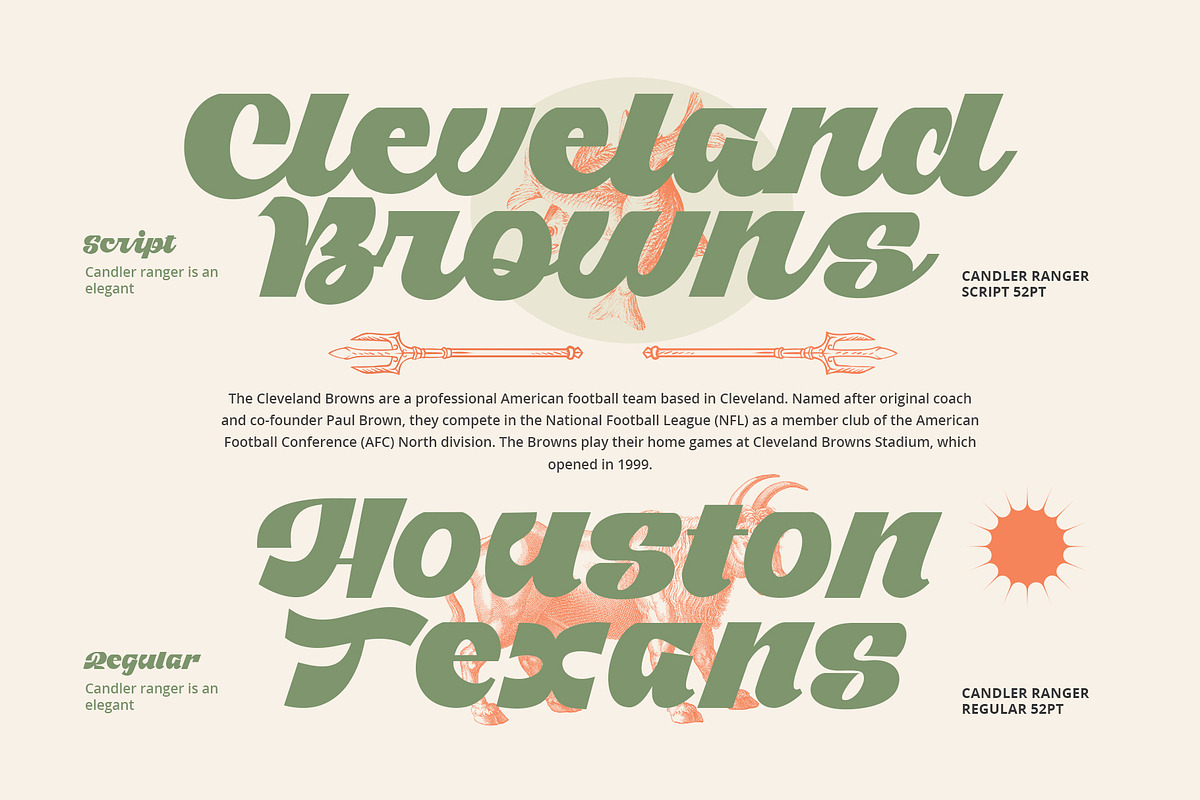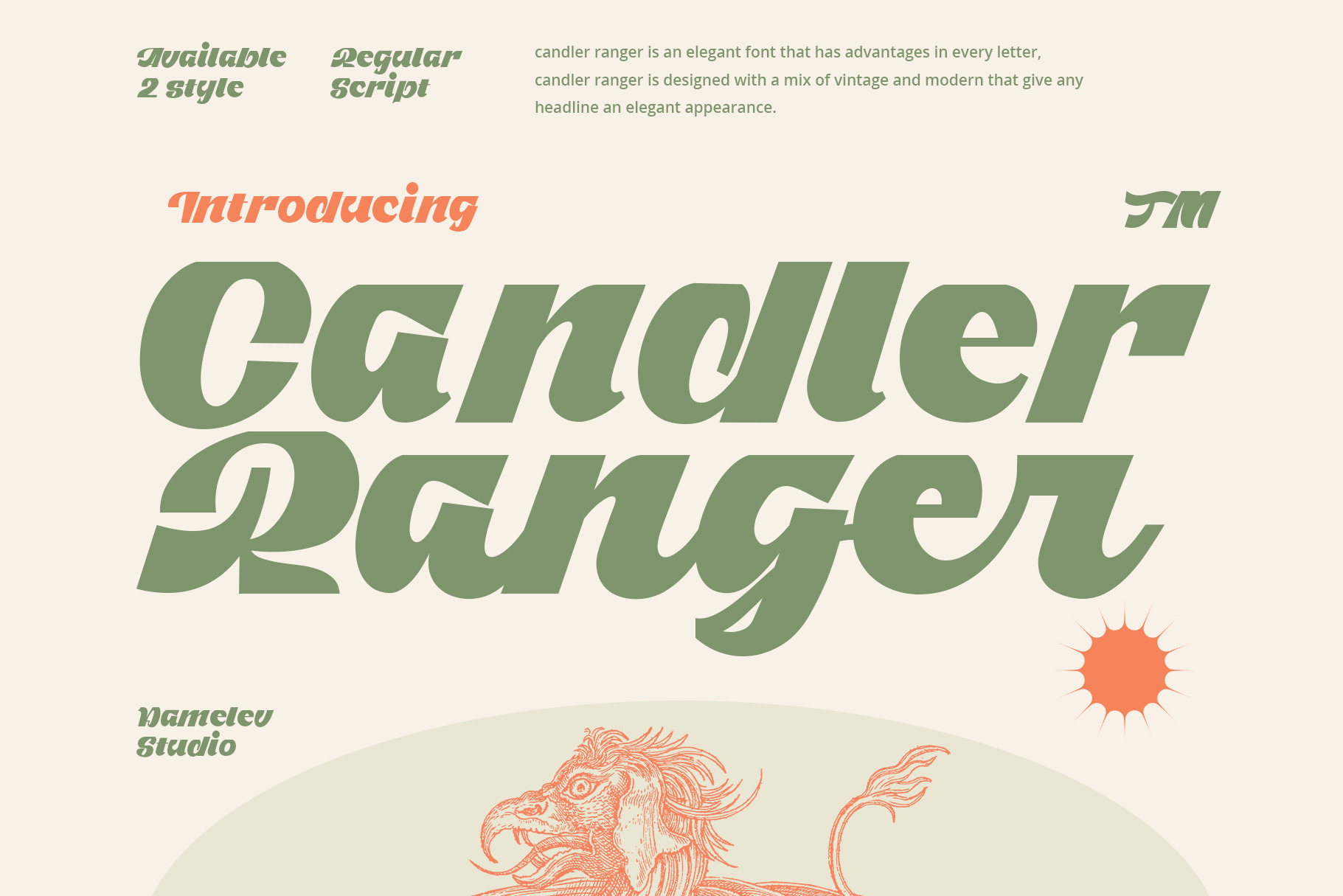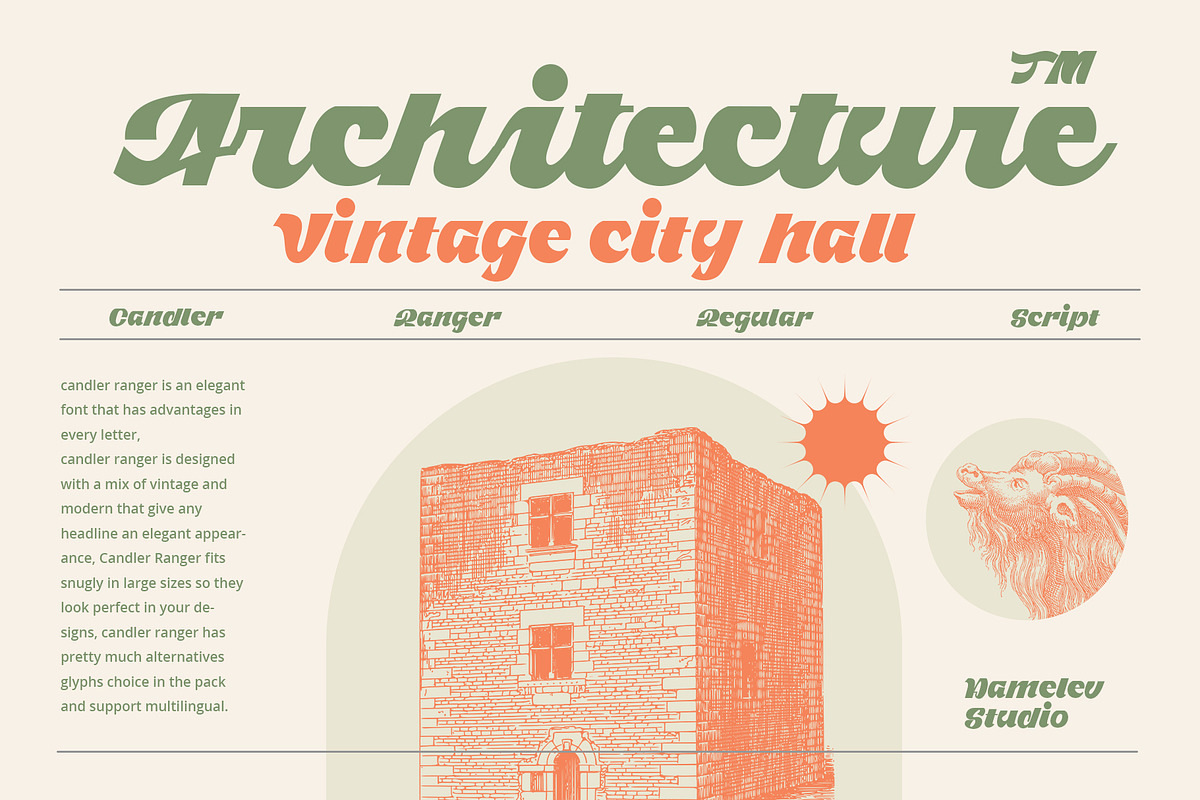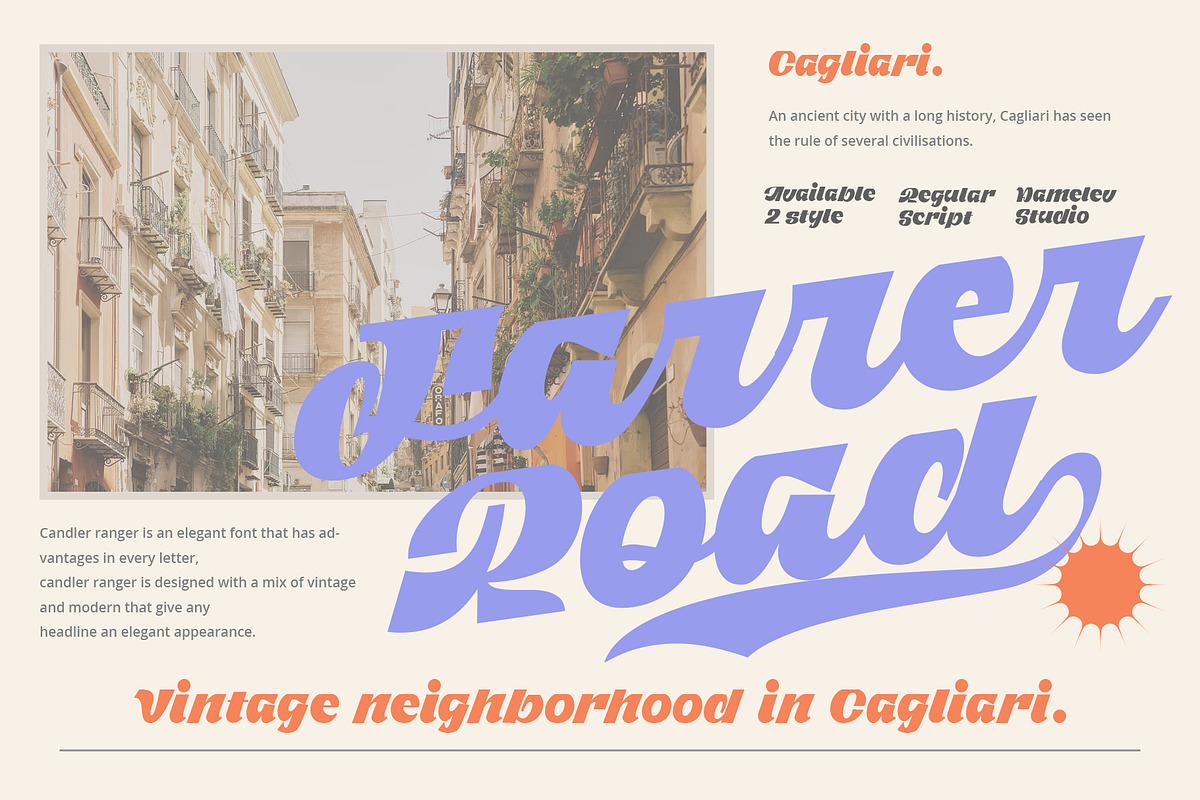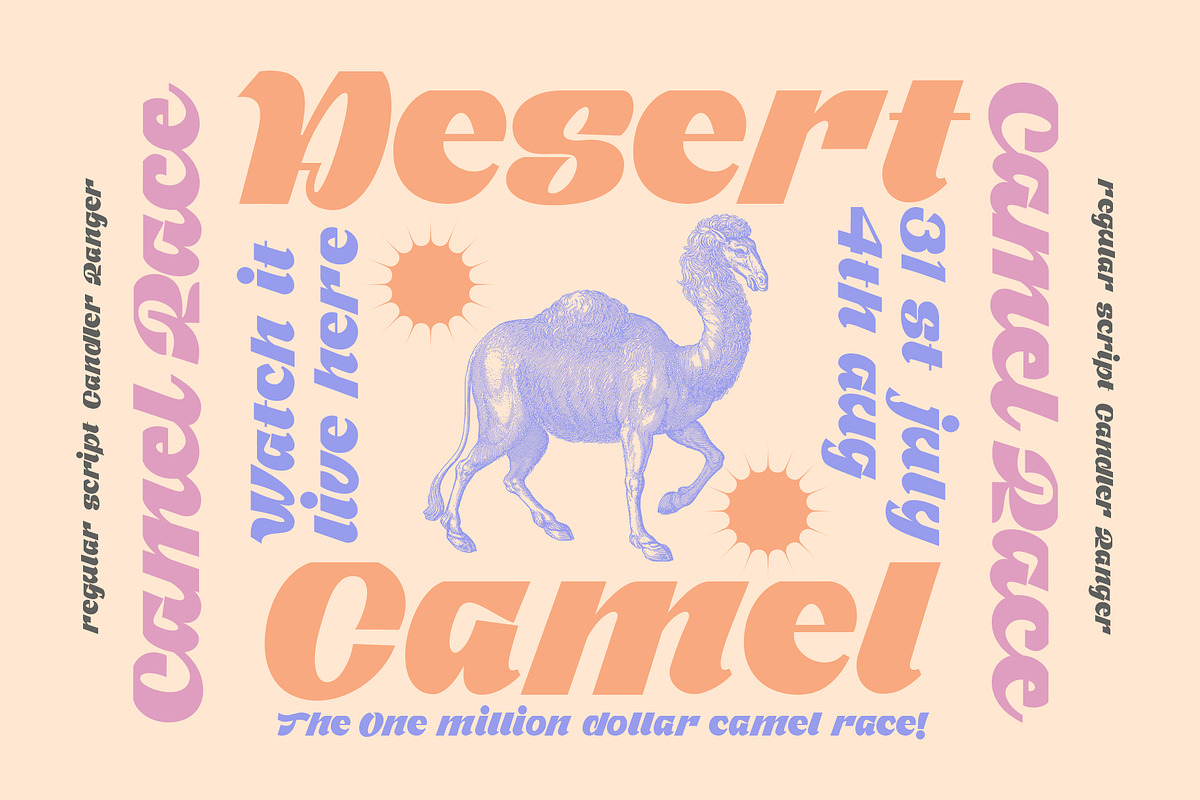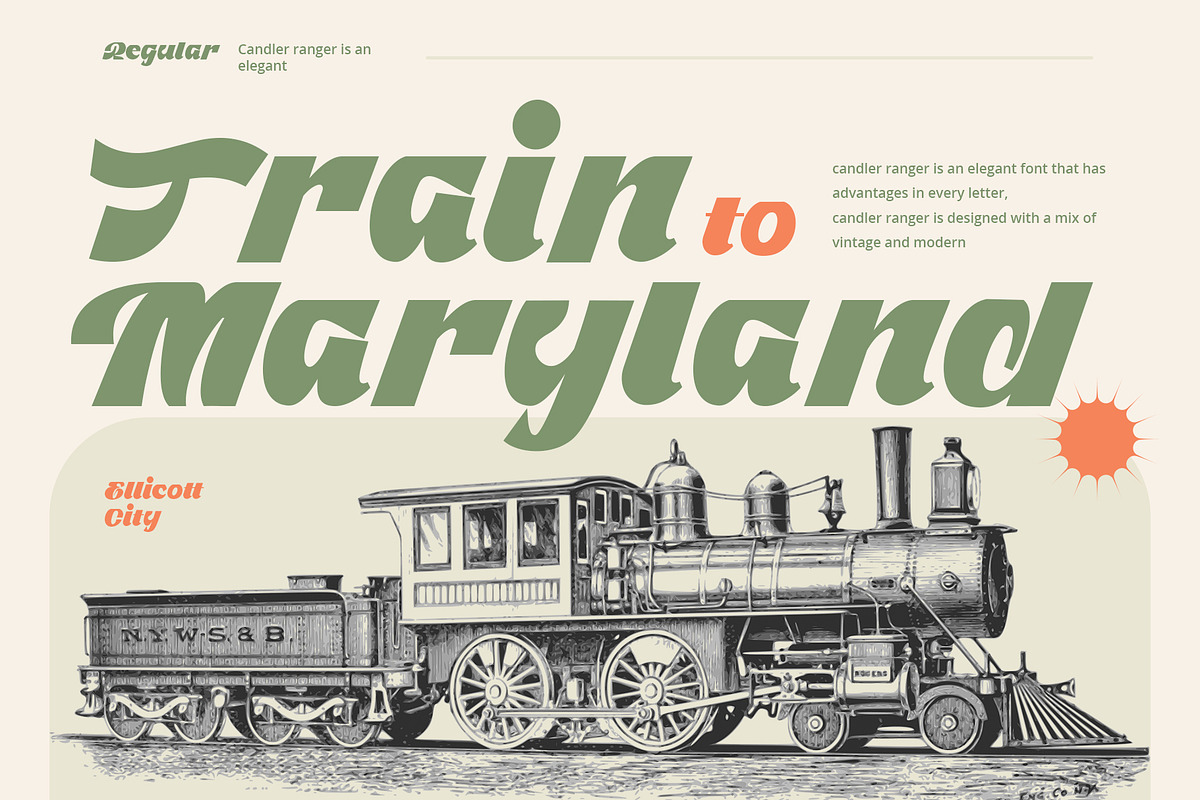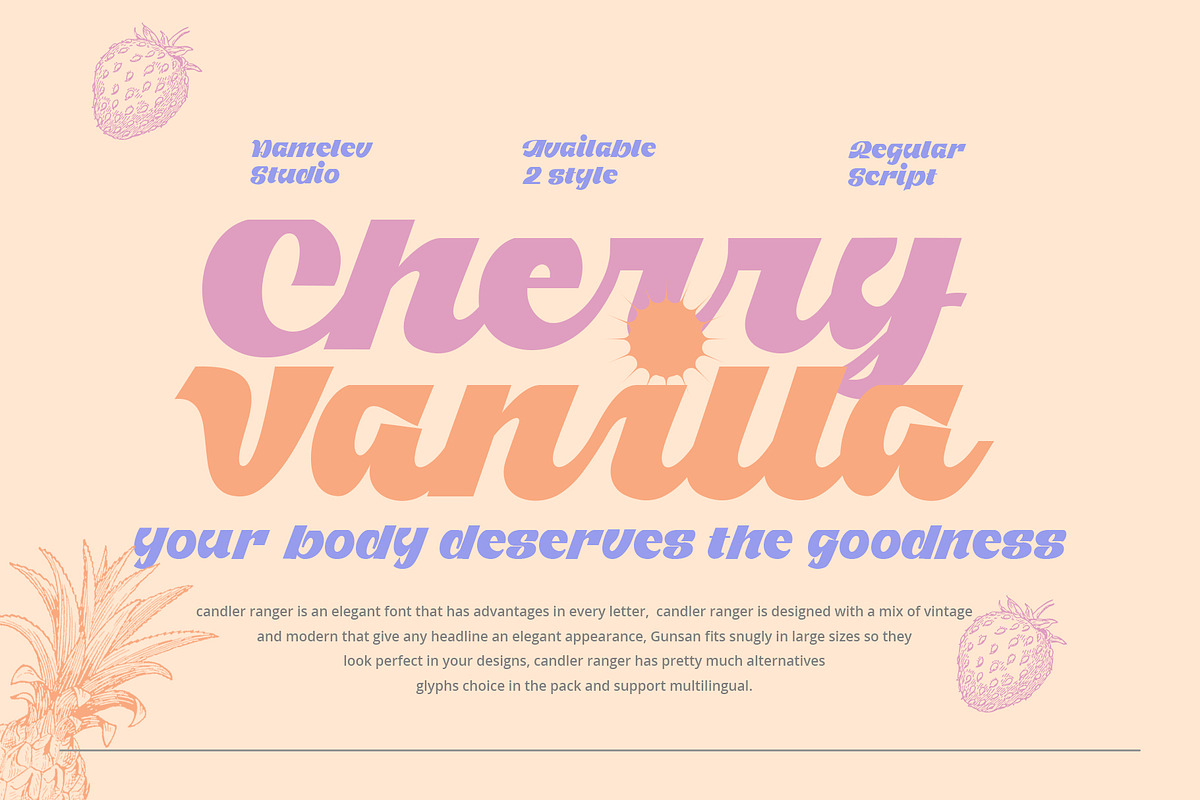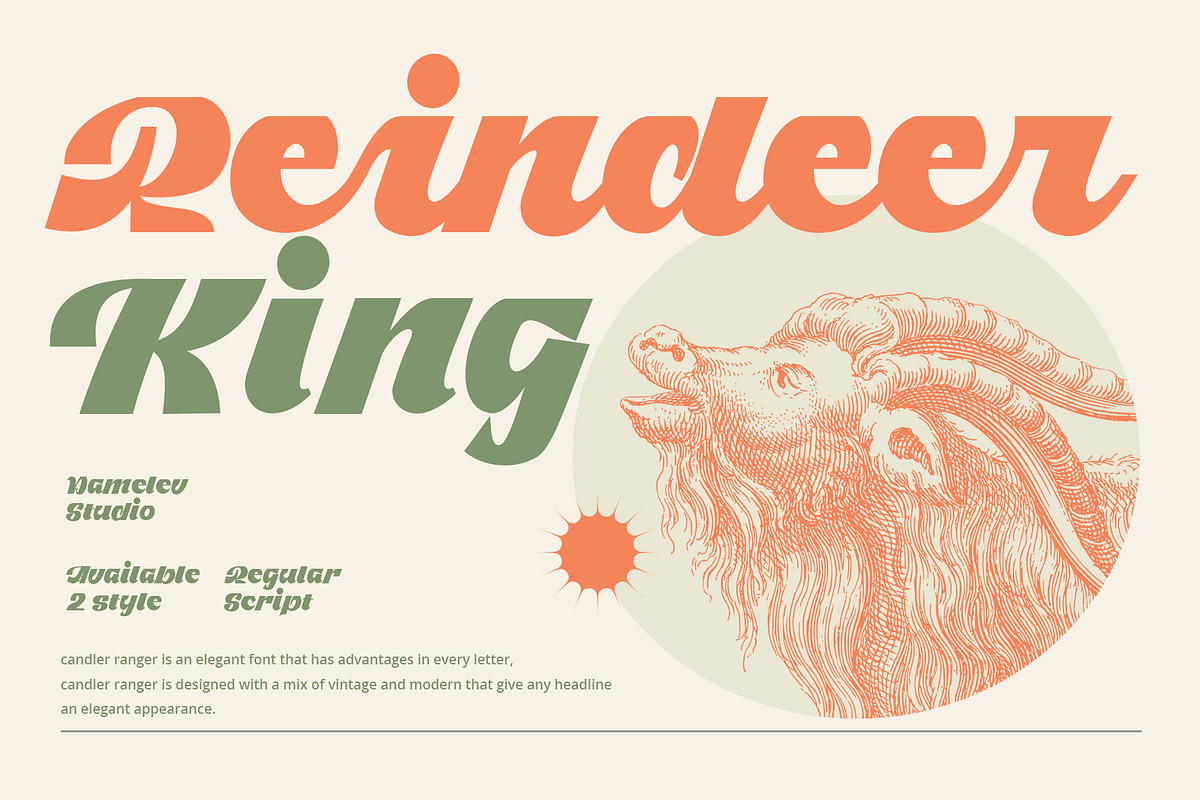
Candler Ranger Font Duo
Candler Ranger is an elegant font that has advantages in every letter, Candler Ranger is designed with a mix of vintage and modern that give any headline an elegant appearance, Candler Ranger fits snugly in large sizes so they look perfect in your designs, Candler Ranger has pretty much alternatives glyphs choice in the pack and support multilingual.